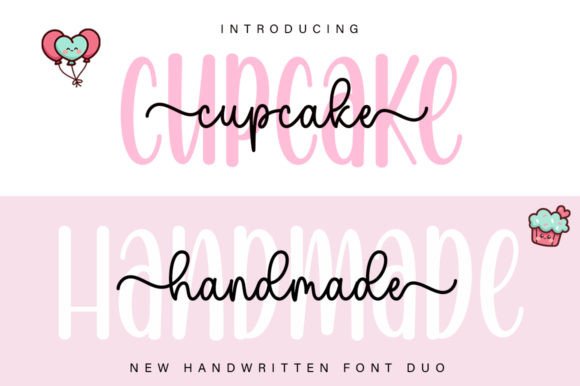
Introducing Cupcake Handmade Duo Font, the ultimate choice for those seeking an enchanting and romantic touch in their designs. This stylish duo font, created by DN Creative, offers a perfect blend of elegance and delicacy that will elevate your creations to new heights.
With its sans serif and script styles, Cupcake Handmade Duo Font is incredibly versatile, making it suitable for a wide range of applications. Whether you're designing greeting cards, crafting captivating headlines, or even considering a script tattoo, this font is guaranteed to leave a lasting impression.
But what sets Cupcake Handmade Duo Font apart from the rest? It's the attention to detail and thoughtfully crafted glyphs and ligatures that make this font truly exceptional. With PUA encoding, accessing all the unique characters and ligatures becomes a breeze, allowing you to effortlessly create stunning and personalized designs.
Imagine the elegance and charm that Cupcake Handmade Duo Font will bring to your wedding invitations, love letters, or even social media posts. Each stroke of this font exudes a sense of passion and romance, captivating your audience and leaving them in awe of your creativity.
Transform your designs into captivating works of art with Cupcake Handmade Duo Font. Let your imagination run wild as you explore the endless possibilities this font offers. Whether you're a professional designer or an enthusiastic hobbyist, this font is a must-have addition to your collection.
Don't settle for ordinary fonts when you can have Cupcake Handmade Duo Font, a true masterpiece that will elevate your designs to extraordinary levels. Embrace the magic and allure this font brings, and watch as it captivates hearts and leaves a lasting impression on everyone who sees your creations.